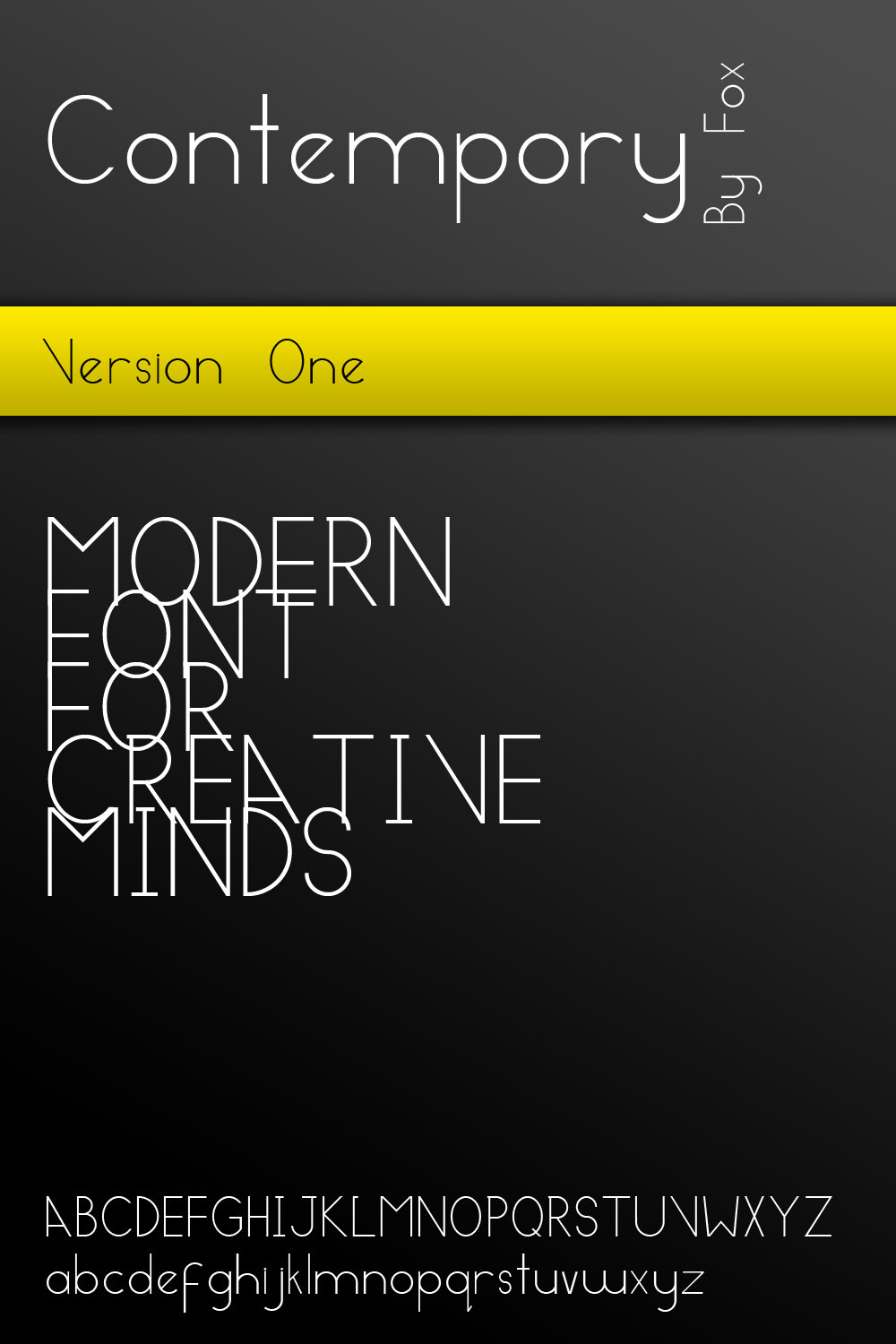
MyFox β€” Contempory - Modern Font by-sa
Description I was looking around for a nice contempory modern font, I was a bit stuck becuase what i wanted wasnt realy there. So i decided to make one.
This is the outcome